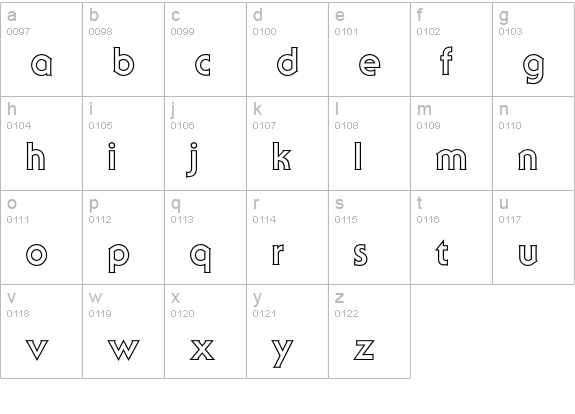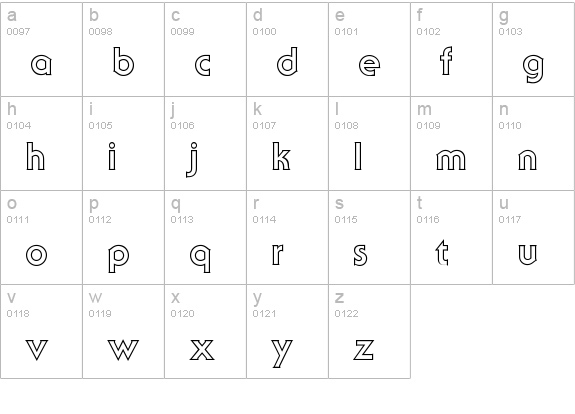
Serif Gothic Outline Font Details
Serif Gothic Outline font is a stunning display font that is sure to add a touch of elegance and sophistication to any design project. Its unique combination of bold, clean lines and delicate, intricate details make it the perfect choice for both modern and vintage-inspired designs. This font features a stylish outline style that adds a contemporary and eye-catching element to any text. The precise and well-defined lines create a sense of precision and professionalism, making it ideal for any project that requires a refined and polished look. Whether you are designing a logo, creating a poster, or working on a website, Serif Gothic Outline font will help you make a bold statement. Its versatile nature allows it to be used for a wide range of design purposes, from headlines to body text, ensuring that your message is delivered with clarity and impact. One of the best things about Serif Gothic Outline font is that it is free to download. You can easily access this amazing font at FontsMarket.com, where it is available for immediate download. This means you can start using this font in your designs right away, without any cost or hassle. With its sleek and sophisticated design, Serif Gothic Outline font is a must-have for any designer or creative professional. Its timeless appeal and versatility make it a valuable addition to your font library, allowing you to create stunning and memorable designs that stand out from the crowd. So why wait? Download Serif Gothic Outline font today and unleash your creativity with this beautiful and free font. FontsMarket.com is your go-to source for free fonts, and with this font, you'll have everything you need to take your designs to new heights.